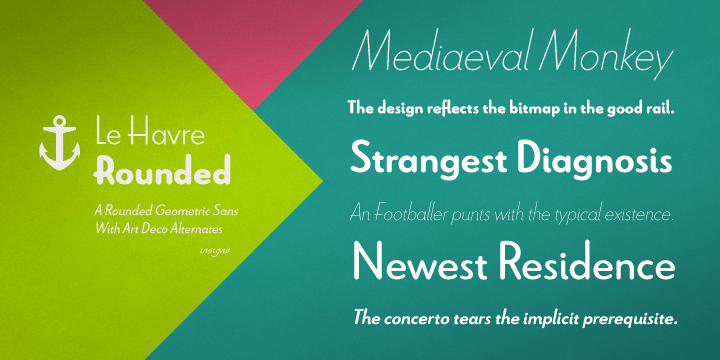
Le Havre Rounded
About Le Havre Rounded
The Le Havre series is a series of geometric sans serifs inspired by the dignified era of the passenger ship, when getting to your destination was a delight in and of itself. Le Havre Rounded is a fun and new interpretation of geometric sans serifs.…